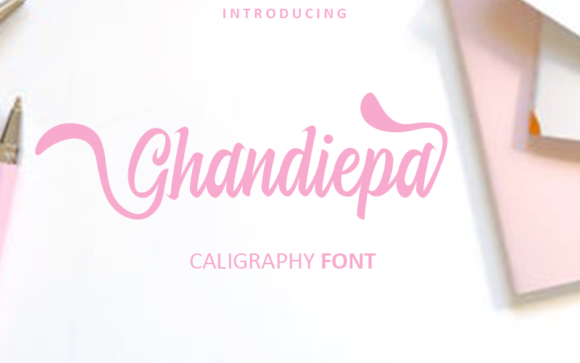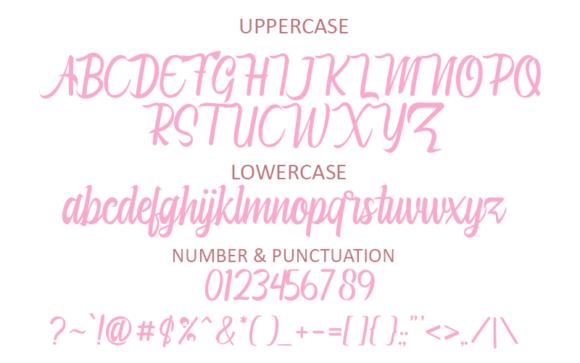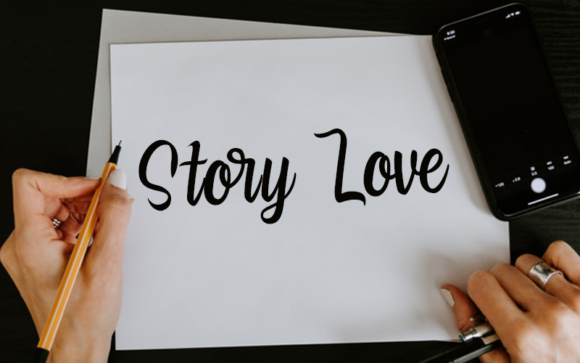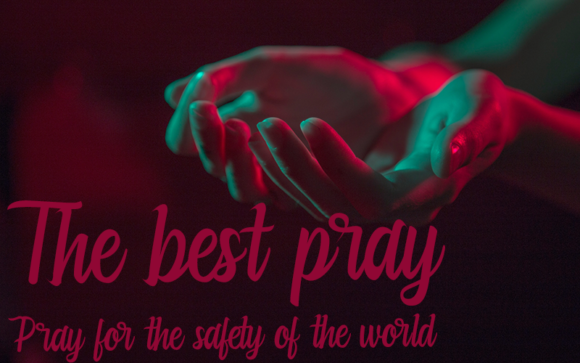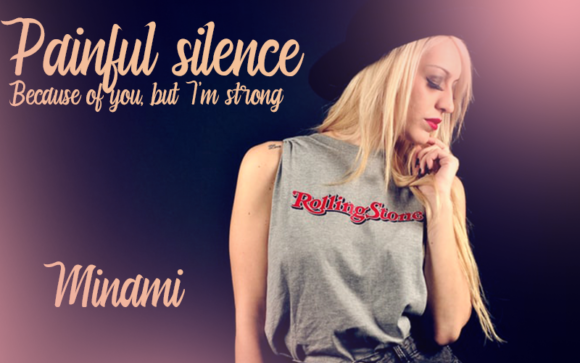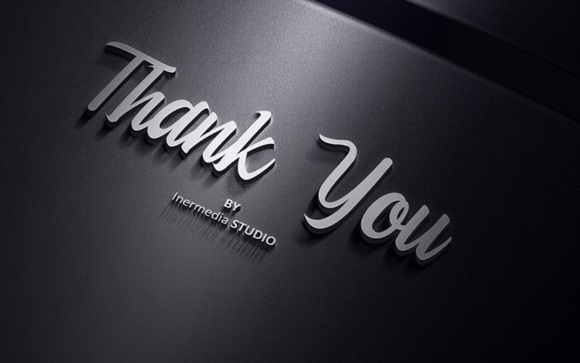
Ghandiepa Font
About Ghandiepa Font
Ghandiepa embodies cuteness, playfulness, and authenticity. This enchanting handwritten font will turn any creative idea into a true standout.